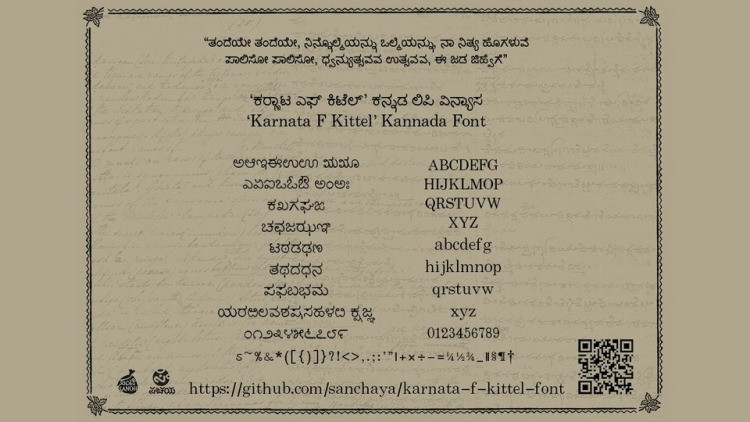
Karnata F Kittel Font
Karnata F Kittel font is a digital revival of an existing foundry typeface created in erstwhile Basel Mission Press Mangalore between 1830-1900. This font is an attempt to re-create the typeface that resembles a lot with the Kannada Long primer No 2 which was supposedly created with the supervision of master founder George Plebst at Basel Mission Press, Mangalore (no documentation found yet).
The font has been named after lexicographer, linguist & philologist Ferdinand Kittel (1832-1904) as a mark of honor to his immense scholarly contribution to the Kannada language.